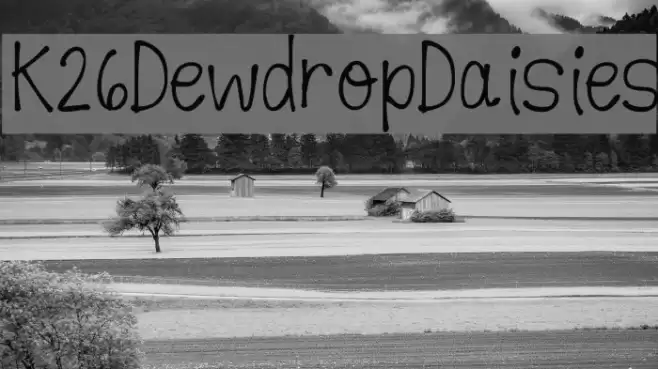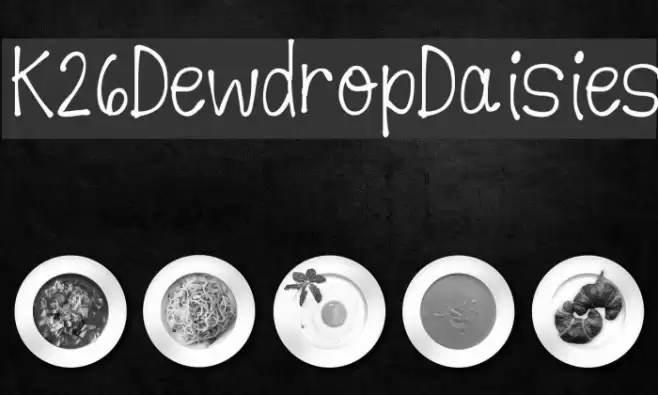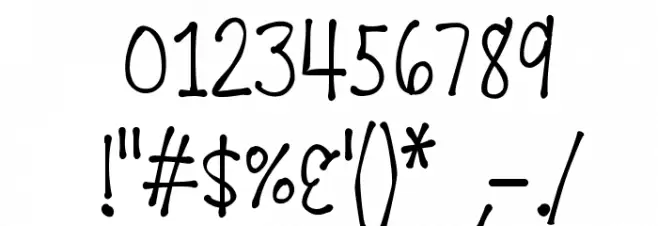
K26DewdropDaisies Font
K26DewdropDaisies Description
This font features a playful and whimsical handwritten style, characterized by its tall, narrow letters with rounded edges. The uppercase letters are slightly taller than the lowercase, maintaining a consistent width throughout. The strokes are smooth and even, giving a casual yet legible appearance. The numbers follow the same style, ensuring uniformity across all characters. Special characters are included, maintaining the same playful aesthetic. This font is perfect for projects that require a friendly and approachable look.
A playful, handwritten font with tall, narrow letters and rounded edges from Handwritten fonts.
- Proposed Projects: Ideal for children's books, greeting cards, playful branding, and casual invitations.
- Overall Style: Casual
- Use Case: Headlines, Logos, Invitations